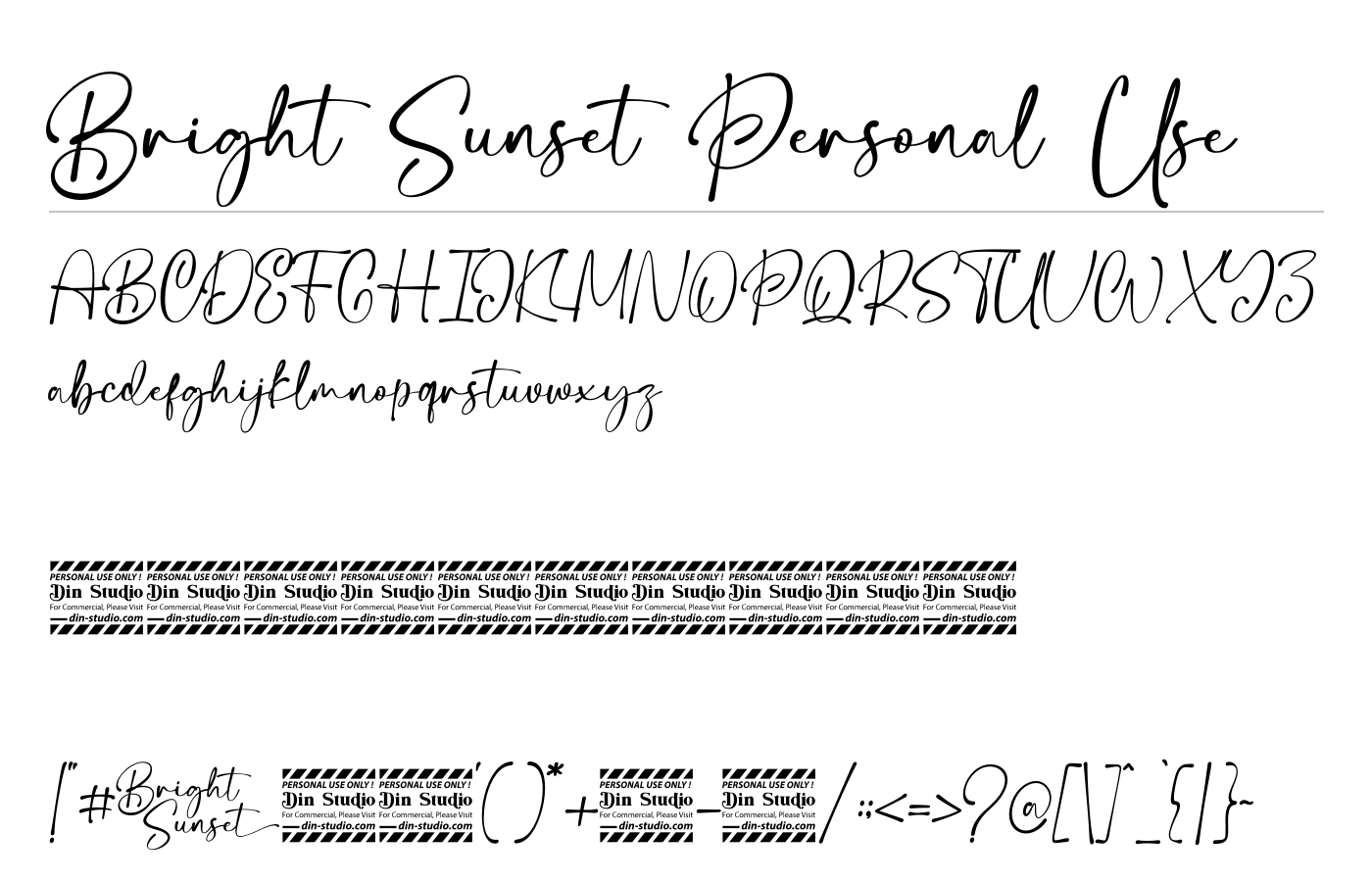
Bright Sunset Personal Use is a delicate script font with an elegant and flowing style characterized by slender, graceful strokes and a handwritten charm. Its light weight and airy letterforms make it perfect for adding a sophisticated, personal touch to designs like invitations, branding, and social media graphics where a refined yet approachable feel is desired. This font shines best in headlines or accents, lending a modern, stylish mood without overwhelming the design.
Bright Sunset Personal Use Font
About Bright Sunset Personal Use Font
| Font family | Bright Sunset Personal Use Font |